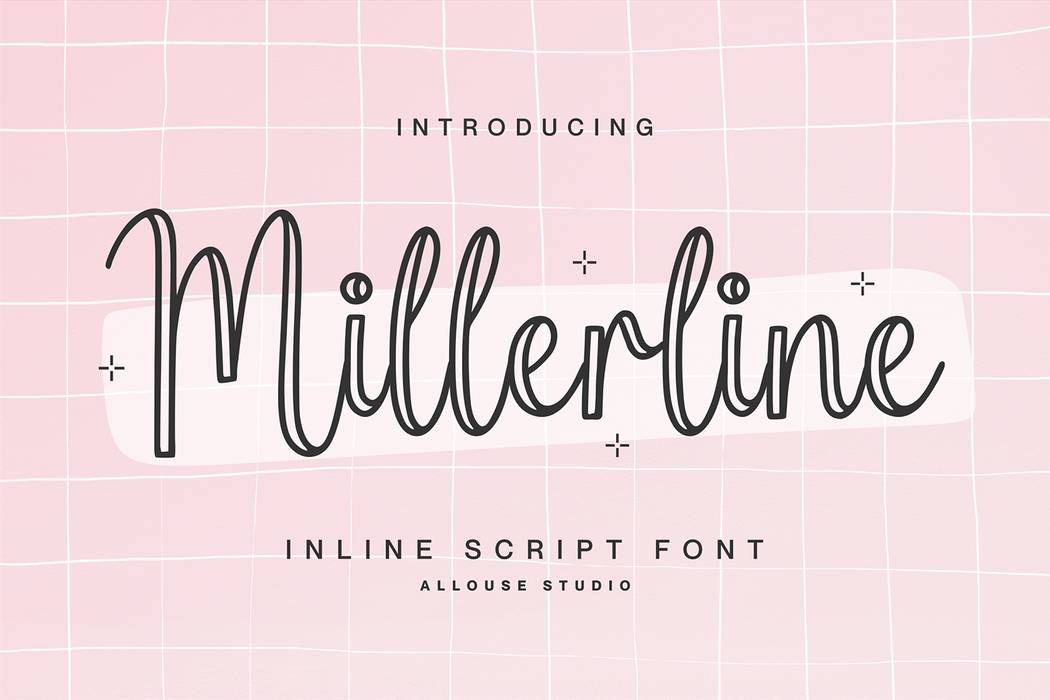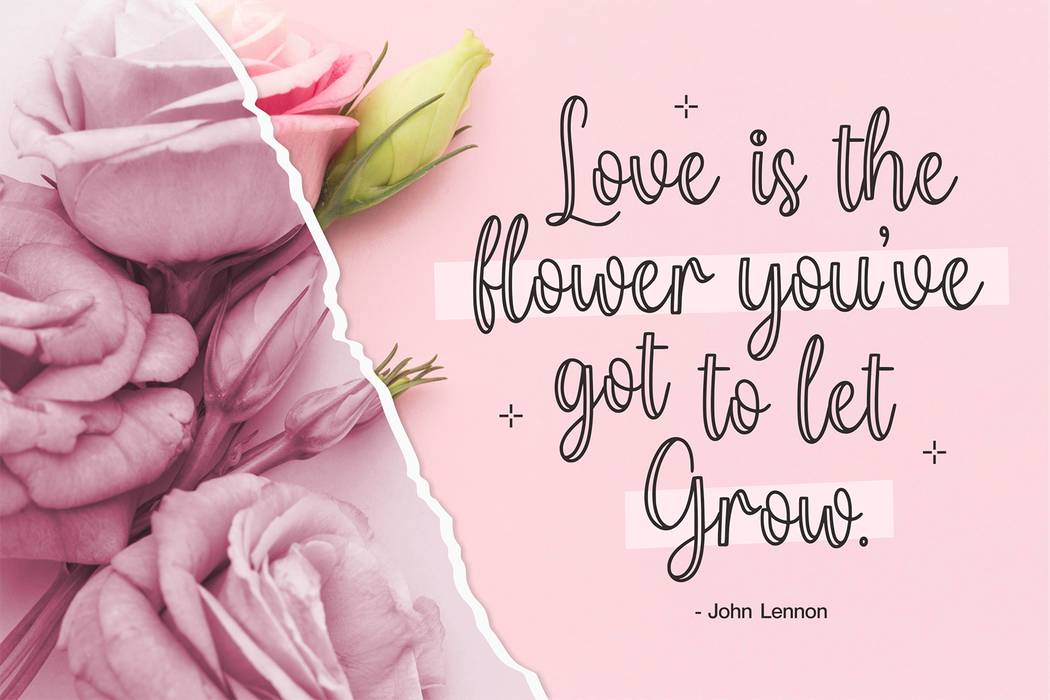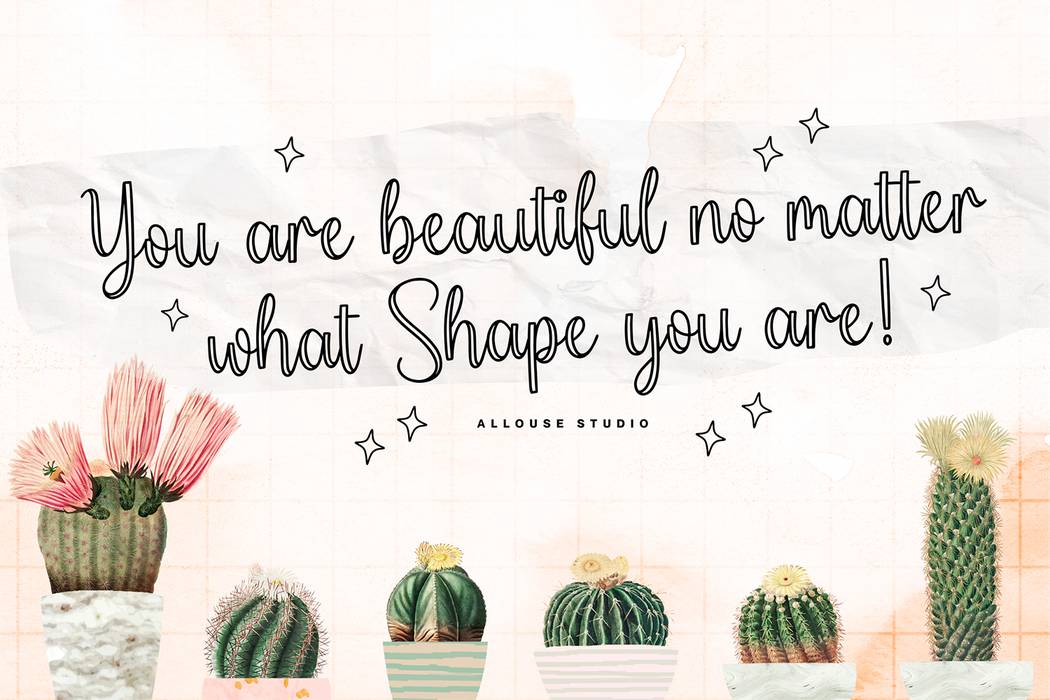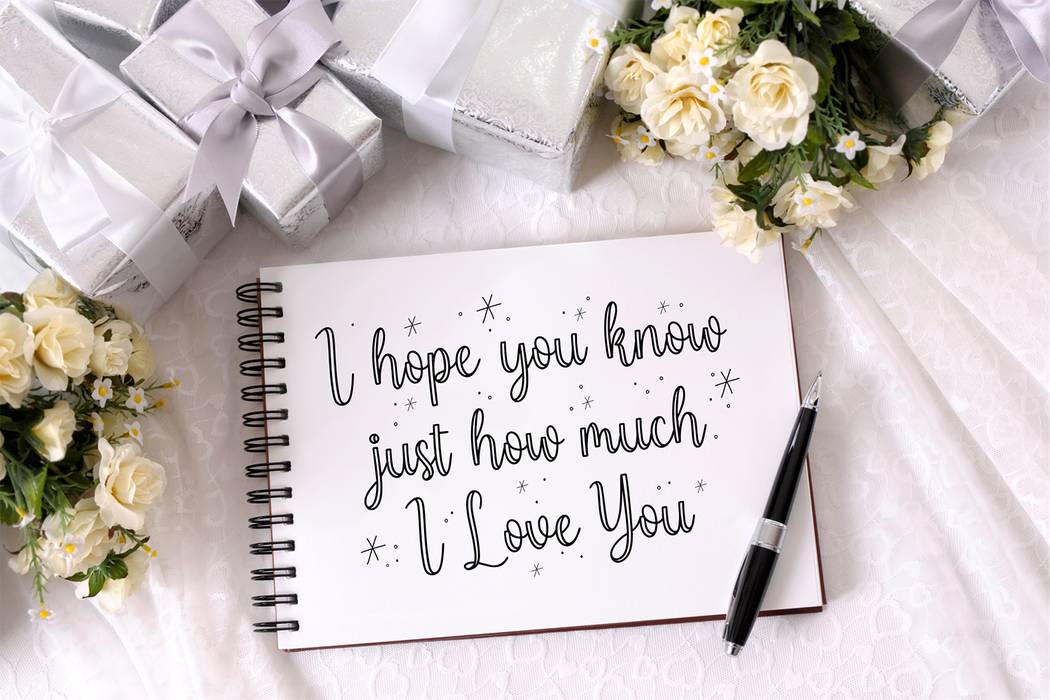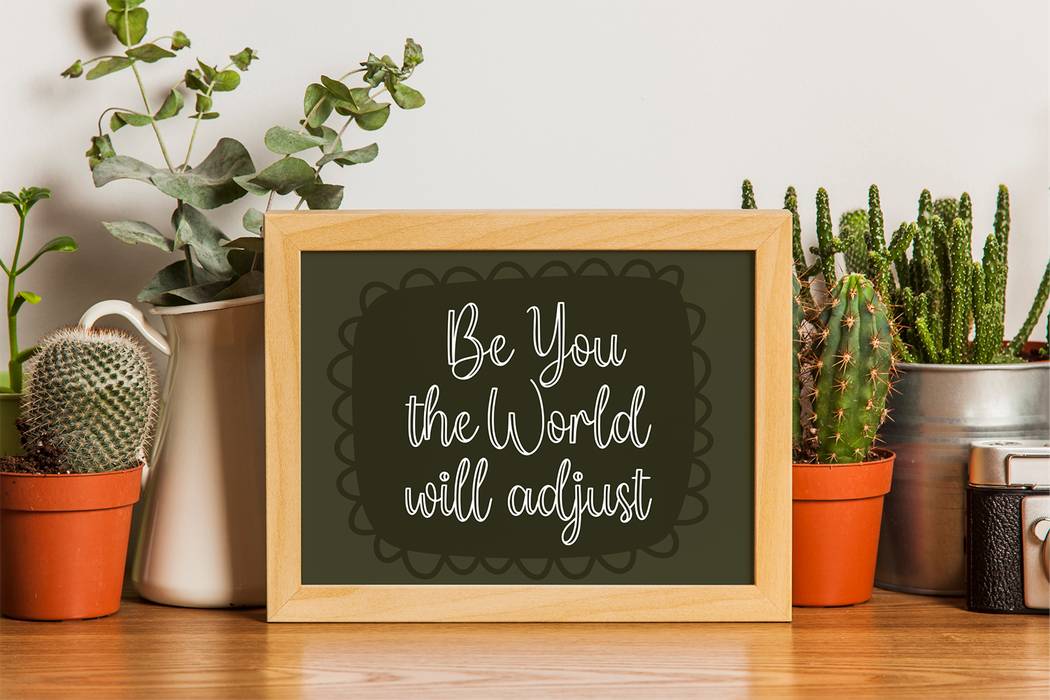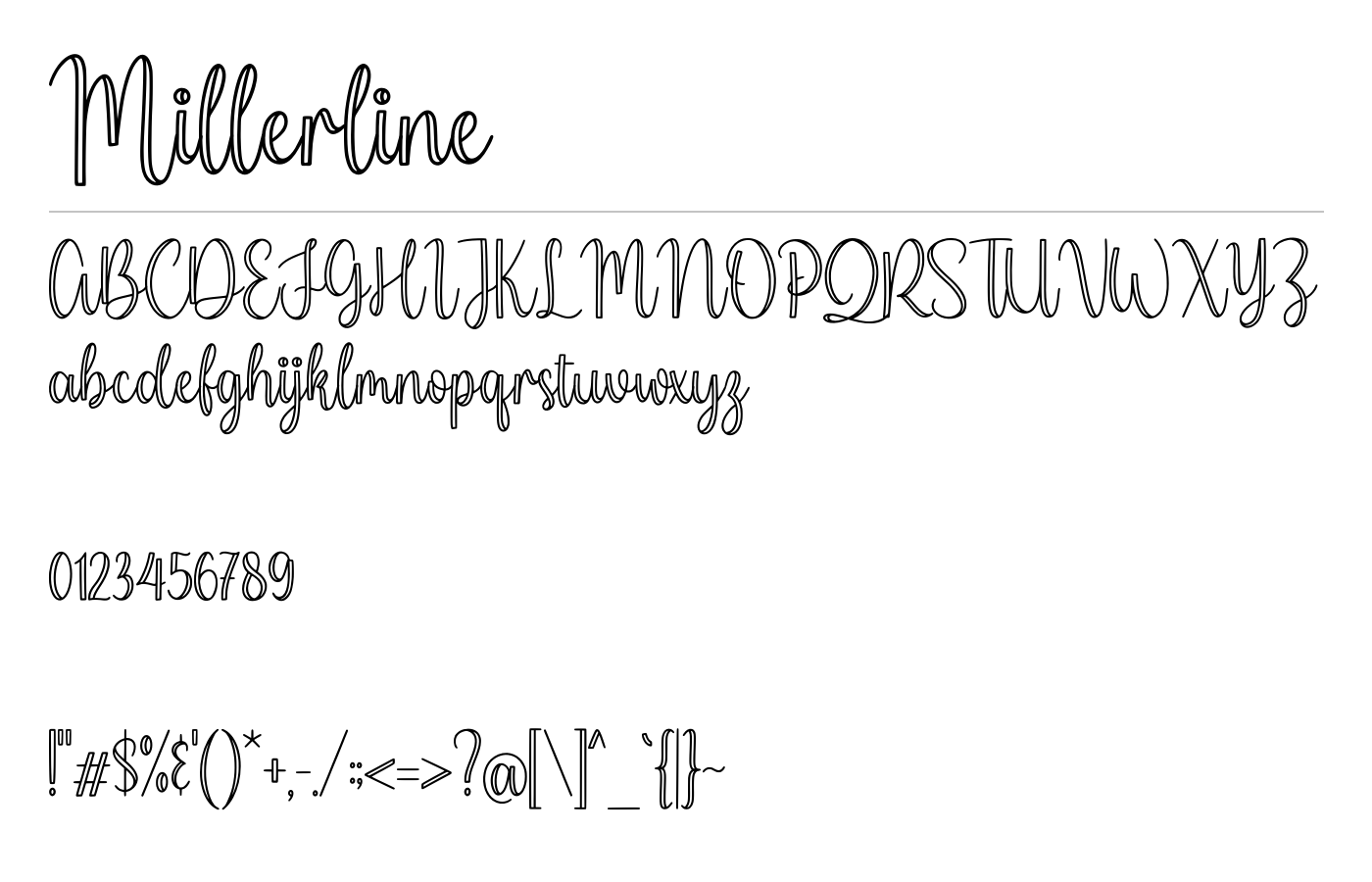
Millerline is a playful and elegant handwritten script font with a light, airy feel created by its thin, continuous strokes and tall, narrow letterforms. Its whimsical style, featuring rounded loops and smooth curves, makes it perfect for creative branding, invitations, and feminine designs that want to convey charm and personality. This font works well in headlines, logos, and decorative text where a friendly and approachable vibe is desired.
Millerline Font